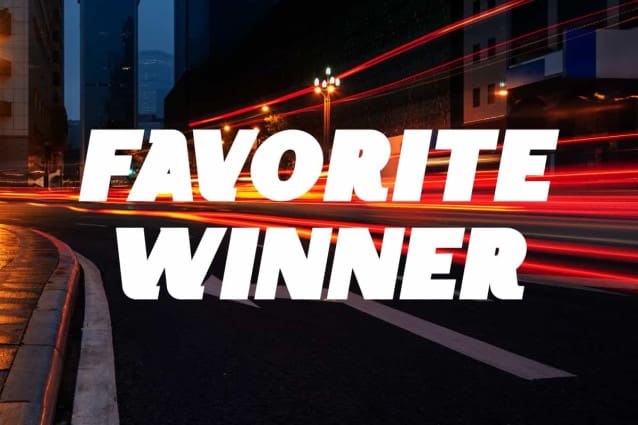
Favorite Winner Font
Favorite Winner Font is a modern sporty racing display font with unique bold appearance. This font has bold letter characters with a versatile shape that will suits many designs, such as cover, custom design, invitation, label, poster, product packaging, quotes, signage, stationery, website, and more!
Favorite Winner Font includes full set of ALL CAPS for Uppercase and Lowercase Basic Characters, Numerals, Punctuation and Symbol. This font can make your design more attractive and will be suitable for many industries, such as accessories, advertising, event or festival, fashion, furniture, game, movie, photography, sports, etc.